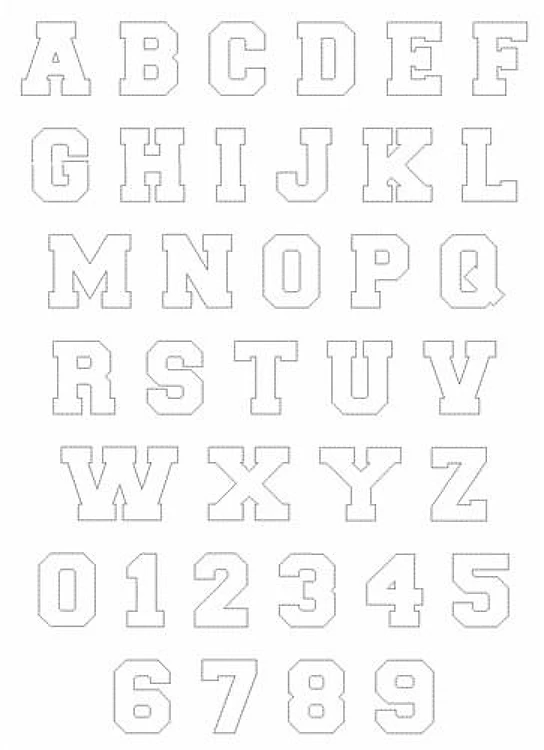
College Reverse Applique Alphabet Embrilliance Embroidery Font - Bold Collegiate Letters - BX font by Great Notions and other embroidery fonts available at EmbroideryDesigns.com.